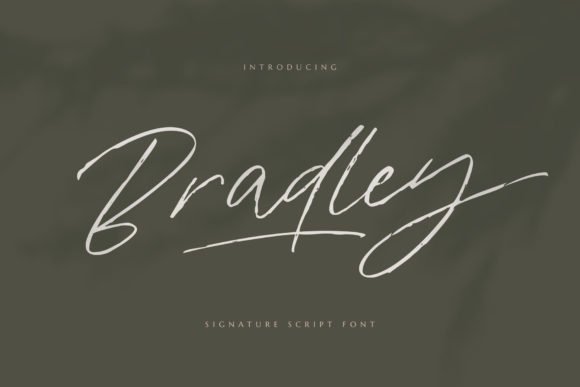
The Perfect Signature: Unveiling the Timeless Beauty of Bradley Font
You’ve spent hours crafting the perfect design, but it’s the final touch that makes it truly unforgettable – your signature. It’s a personal flourish that adds warmth and authenticity to any project, from a magazine cover to a wedding invitation. As a designer, you know the importance of choosing the right font to make that statement.
Enter Bradley Font, a classic handwritten font that exudes elegance and sophistication. Its beautiful lines and natural details make it perfect for adding a personal touch to any design. Whether you’re looking to create a memorable signature, add a touch of whimsy to a magazine headline, or craft a stunning wedding card, Bradley Font is an excellent choice. For designers, it’s a valuable asset that can elevate any project and make it truly stand out.
Bradley Font Key Features
- Font Family: Bradley Font is a script font, specifically a calligraphic font designed for formal and elegant typography.
- Unique Characteristics: The font’s distinctive features include flowing connections, elegant letterforms, and a touch of vintage charm, making it suitable for formal invitations, wedding stationery, and luxury branding.
- Style Variations: Bradley Font is available in multiple weights, including Light, Regular, Bold, and Extra Bold, allowing designers to choose the perfect style to match their project’s tone and atmosphere.
Bradley Font Review
I recently had the chance to work with the Bradley font, and I must say it’s been an interesting experience. Here are my thoughts on what works well and what doesn’t.
- Unique character set: Bradley has a distinct, vintage feel that’s perfect for projects that need a touch of nostalgia.
- High-quality glyphs: The font is well-crafted, with clean lines and smooth curves that make it easy to read.
- Wide language support: Bradley supports a wide range of languages, making it a great choice for international projects.
- Limited font weights: Bradley only comes in a few font weights, which can make it difficult to achieve the right level of contrast and emphasis.
- No italic styles: While Bradley has a unique feel, it’s missing italic styles, which can limit its versatility.
- Not suitable for small text: Due to its decorative nature, Bradley can be difficult to read in small text sizes.
Overall, Bradley is a great choice for projects that need a unique, vintage feel. While it has some limitations, it’s a solid font that’s well-suited for a variety of applications.
Practical Application Guide for Bradley Font
Tips for Getting the Most Out of the Bradley Font
For a vintage look, use the Bradley Font in combination with distressed textures and muted colors.
To add a touch of elegance, use the Bradley Font in a formal setting, such as a wedding invitation or a business card.
The Bradley Font is commonly used for:
- Home decor and furniture design
Alternatives to Bradley Font for Designers
3. Playfair Display Font
The Playfair Display font is a luxurious and elegant serif typeface that is perfect for use in headlines or titles. It has a classic feel and is highly decorative, making it a good choice for designers who want to add a touch of sophistication to their designs. Playfair Display font is a good alternative to Bradley font as it has a similar sense of grandeur and elegance.